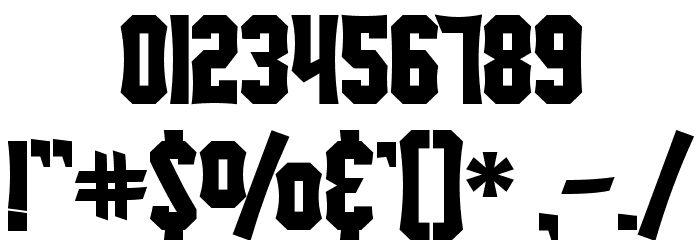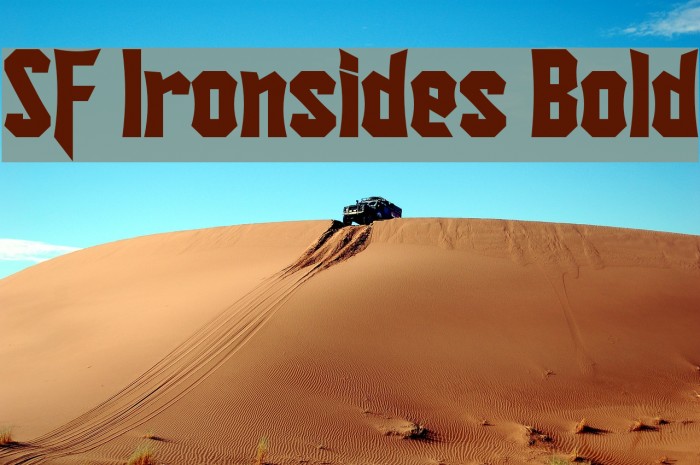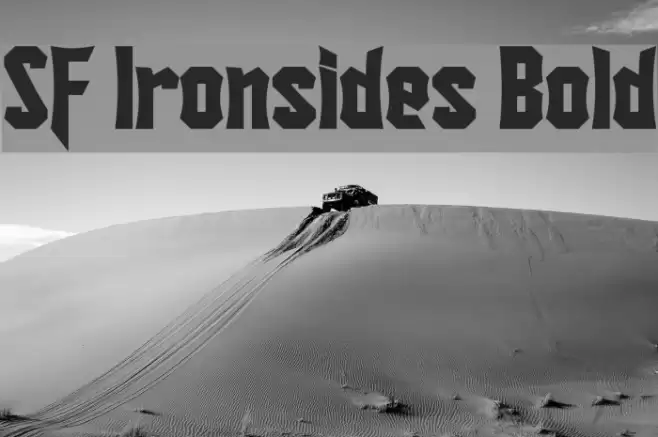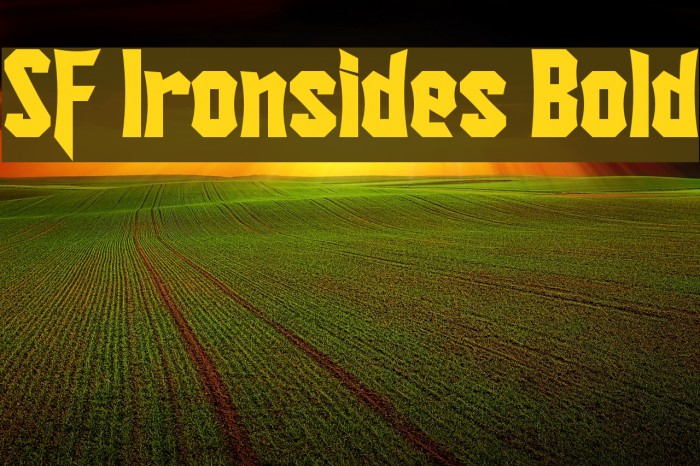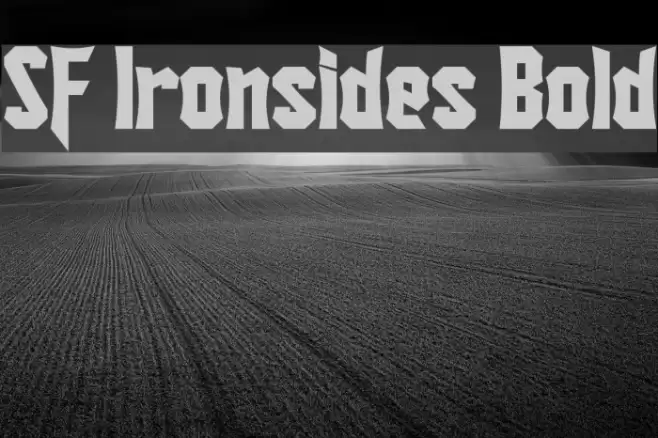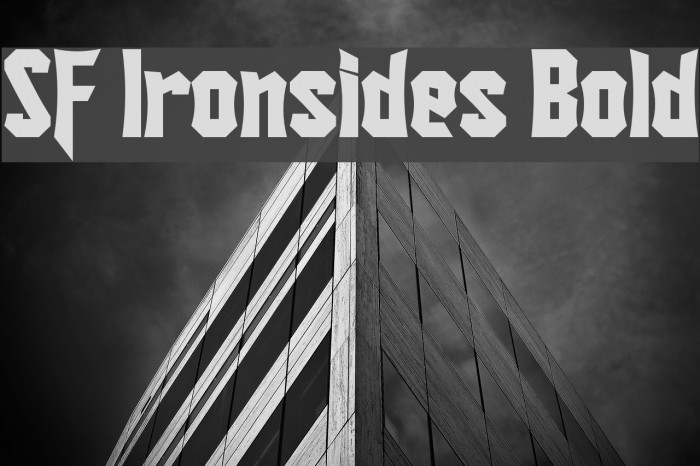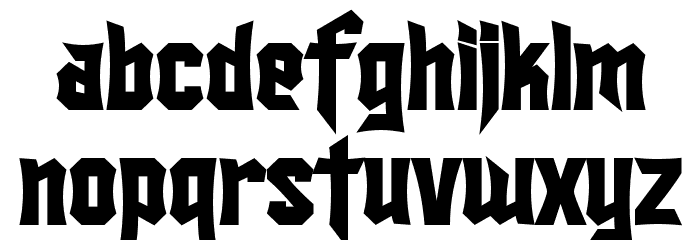
SF Ironsides Bold Font
SF Ironsides Bold Description
This font features a bold and striking design with sharp, angular edges and a strong presence. The uppercase and lowercase letters maintain a consistent geometric style, characterized by pointed serifs and a slightly condensed form. The numerals and special characters follow the same bold and edgy aesthetic, making them stand out prominently. This font's unique style is reminiscent of a futuristic or industrial theme, with a touch of aggression and assertiveness. The overall design is highly decorative, making it suitable for attention-grabbing headlines or logos.
| Width | Condensed |
| Overall Style | Futuristic, Industrial, Decorative |
| Proposed Projects | Ideal for use in video game titles, movie posters, branding for tech or industrial companies, and any project requiring a bold, eye-catching typeface. |